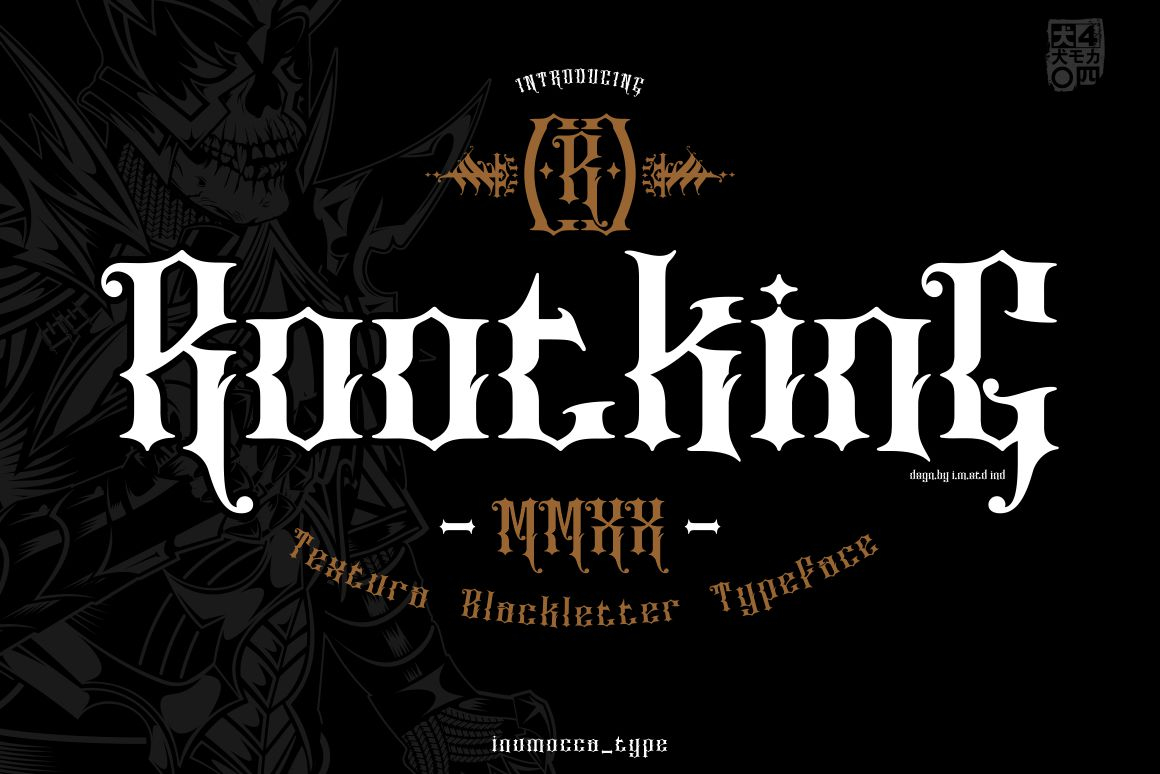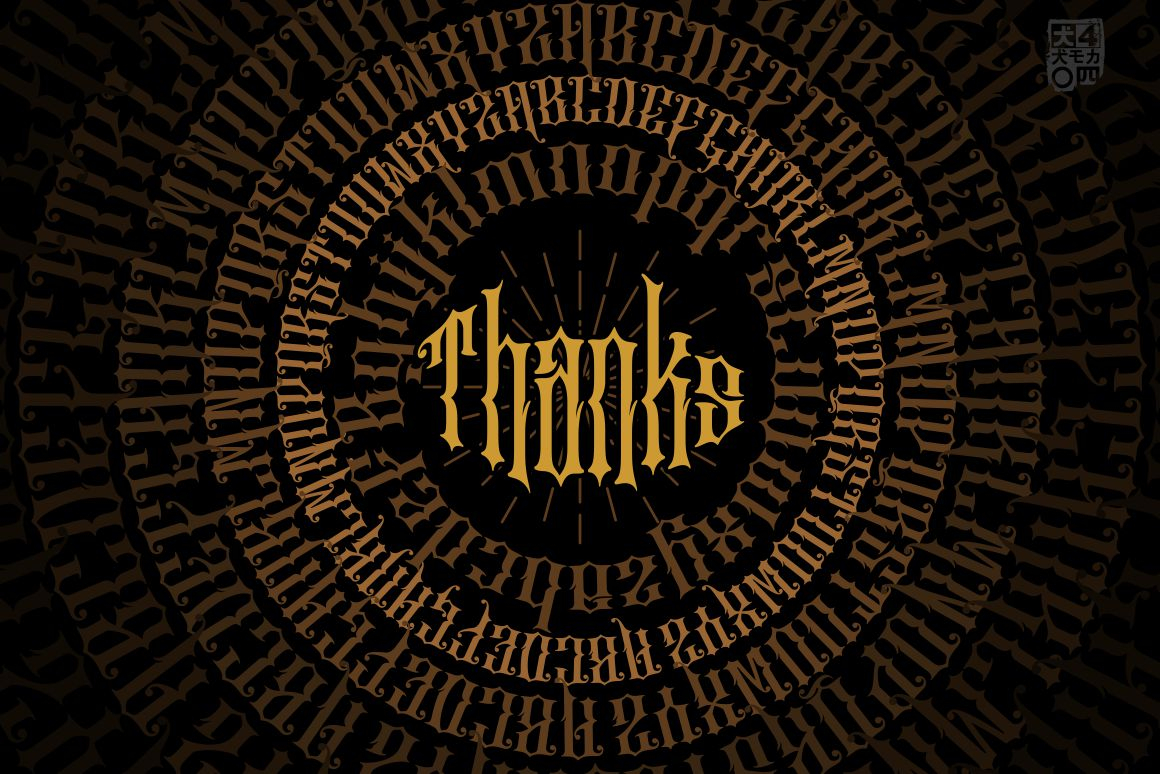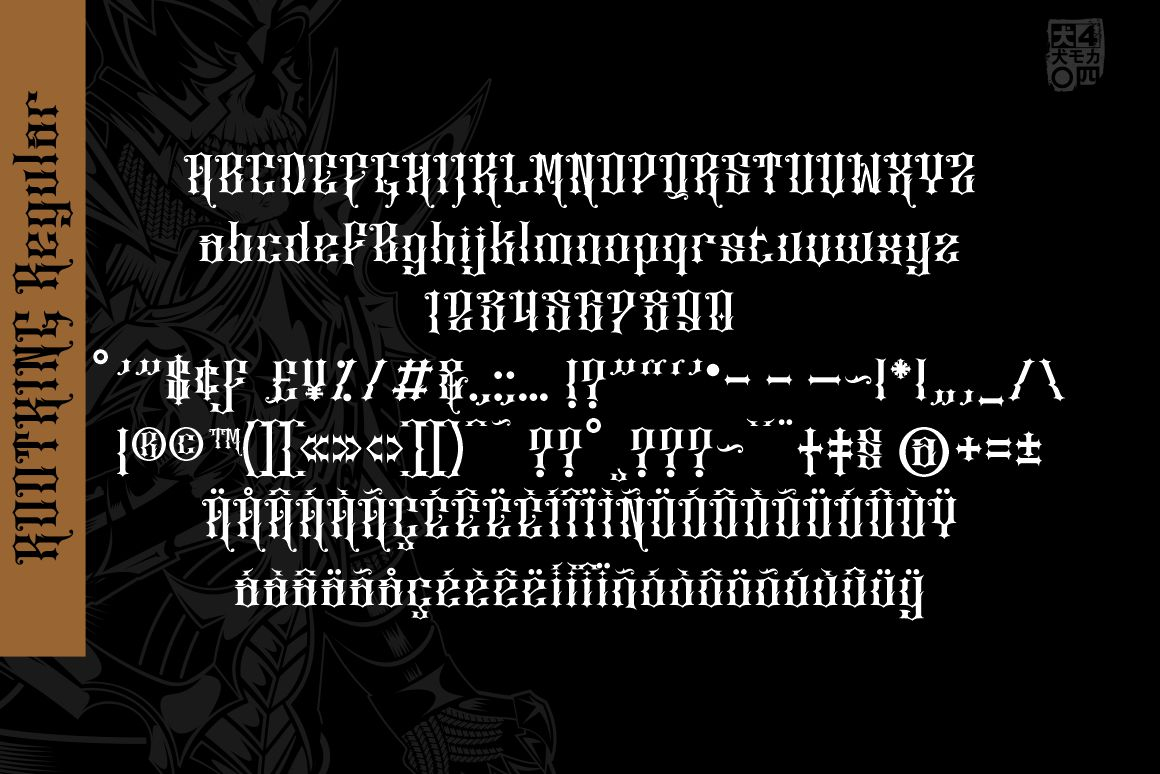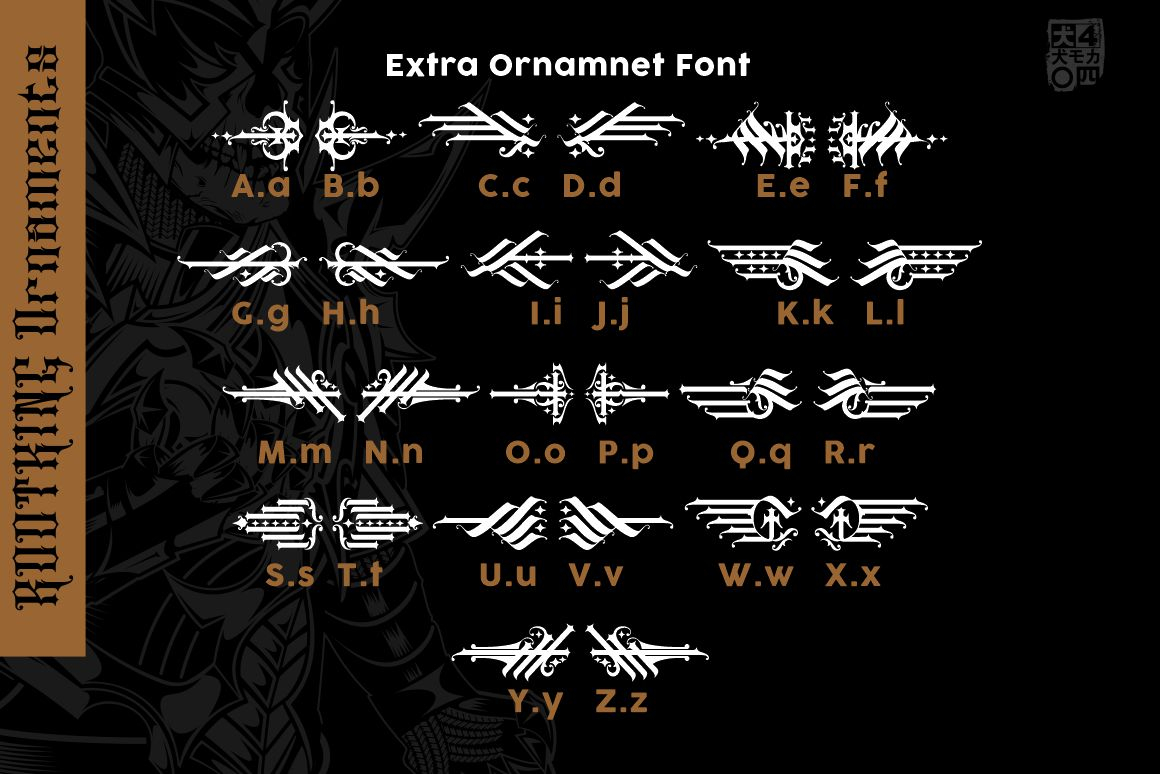
About RootKing Font
RootKing is an incredibly authentic blackletter font, designed to make your projects stand out. Use this particularly unique font and add that retro touch to any design idea you can think of!